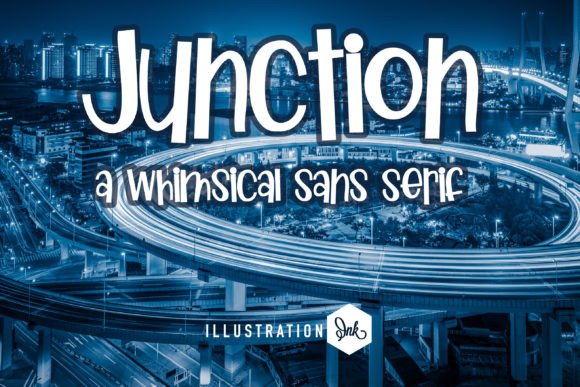
Junction Font: A Casual and Youthful Print for Modern Designs
The Junction Font is a simple, hand-written sans serif font that exudes a casual and youthful vibe, making it perfect for modern designs. This font is characterized by its clean and cheerful appearance, with a unique feature that sets it apart from other fonts – it has no descenders. In this article, we’ll delve into the world of Junction Font, exploring its features, uses, and benefits, as well as provide tips on how to make the most of this delightful font.
Key Features of Junction Font
- Hand-written sans serif: Junction Font has a personal, hand-written feel that gives it a unique and approachable appearance.
- No descenders: The letters in Junction Font are designed without descenders, creating a distinctive and modern look.
- Casual and youthful: The font’s overall appearance is casual and youthful, making it perfect for designs that require a playful touch.
- Cheerful and modern: Junction Font’s clean lines and simple shapes give it a cheerful and modern appearance that’s sure to grab attention.
Uses of Junction Font
Junction Font’s versatility makes it suitable for a wide range of design applications. Here are some popular uses of this font:
- Headings and titles: Junction Font’s bold and cheerful appearance makes it perfect for headings and titles that require a playful touch.
- Logos and branding: The font’s unique features and modern appearance make it an excellent choice for logos and branding materials.
- Posters and flyers: Junction Font’s casual and youthful vibe makes it ideal for posters and flyers that require a fun and attention-grabbing appearance.
- Digital media: The font’s clean and simple design makes it suitable for digital media, including social media graphics, blog posts, and website headers.
Benefits of Using Junction Font
Junction Font offers several benefits that make it an attractive choice for designers. Here are some of the advantages of using this font:
- Unique appearance: Junction Font’s distinctive design, characterized by the absence of descenders, sets it apart from other fonts and makes it memorable.
- Versatility: The font’s versatility makes it suitable for a wide range of design applications, from headings and titles to logos and branding materials.
- Modern and youthful: Junction Font’s modern and youthful appearance makes it perfect for designs that require a fresh and playful touch.
- Easy to read: The font’s clean lines and simple shapes make it easy to read, even at small sizes.
Design Tips for Using Junction Font
To make the most of Junction Font, here are some design tips to keep in mind:
- Use it sparingly: Junction Font’s bold and cheerful appearance can be overwhelming if used excessively. Use it sparingly to create visual interest and emphasize key elements.
- Pair it with contrasting fonts: Pair Junction Font with contrasting fonts to create visual interest and add depth to your design.
- Experiment with colors: Junction Font’s clean design makes it suitable for a wide range of colors. Experiment with different colors to find the perfect combination for your design.
- Consider the context: Consider the context in which Junction Font will be used. For example, if it’s for a children’s product, you may want to use a brighter and more playful color scheme.
Font Pairing Suggestions for Junction Font
Junction Font can be paired with a variety of fonts to create visually appealing combinations. Here are some font pairing suggestions:
- Open Sans: This popular sans serif font pairs well with Junction Font, creating a clean and modern look.
- Lato: This elegant sans serif font complements Junction Font’s casual and youthful appearance, creating a nice contrast.
- Merriweather: This classic serif font provides a nice contrast to Junction Font’s modern and playful appearance, creating a visually appealing combination.
Technical Details of Junction Font
Here are some technical details about Junction Font:
- Font family: Junction Font is a member of the sans serif font family.
- Font style: Junction Font is a hand-written sans serif font with no descenders.
- Font size: Junction Font can be used at a variety of font sizes, from small to large.
Junction Font is a unique and versatile font that offers a fresh and playful touch to modern designs. Its distinctive appearance, characterized by the absence of descenders, sets it apart from other fonts and makes it memorable. With its casual and youthful vibe, Junction Font is perfect for designs that require a fun and attention-grabbing appearance. By following the design tips and font pairing suggestions outlined in this article, you can make the most of Junction Font and create visually appealing designs that capture your audience’s attention.